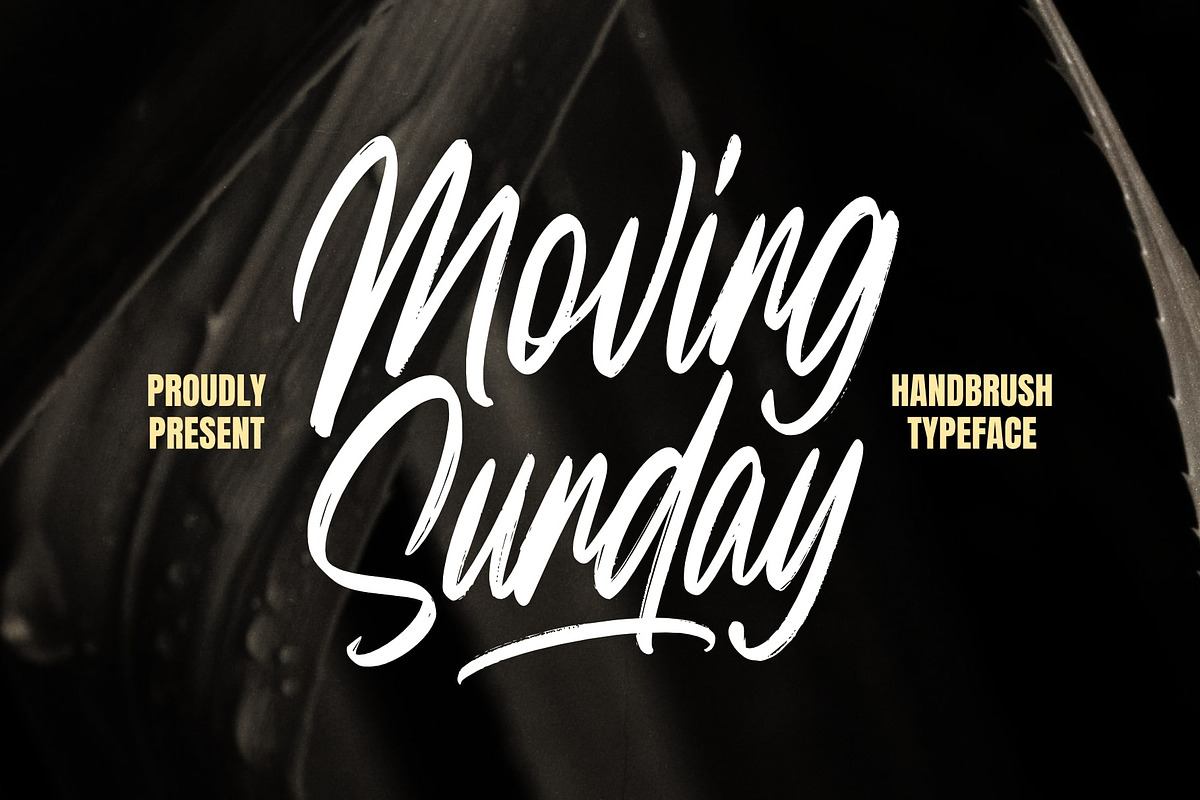
Moving Sunday Handbrush Font Free Download is a dynamic and expressive hand-brushed script typeface that brings personality and energy to your designs. With its bold strokes and smooth curves, this font is perfect for casual branding, logos, social media graphics, invitations, posters, and any project that needs a lively, artistic touch.
The brush-style design gives Moving Sunday an authentic, hand-drawn look while maintaining readability and flair. Whether you’re working on a creative project, a personal brand, or a fun invitation, this font adds an approachable and energetic vibe to your typography.